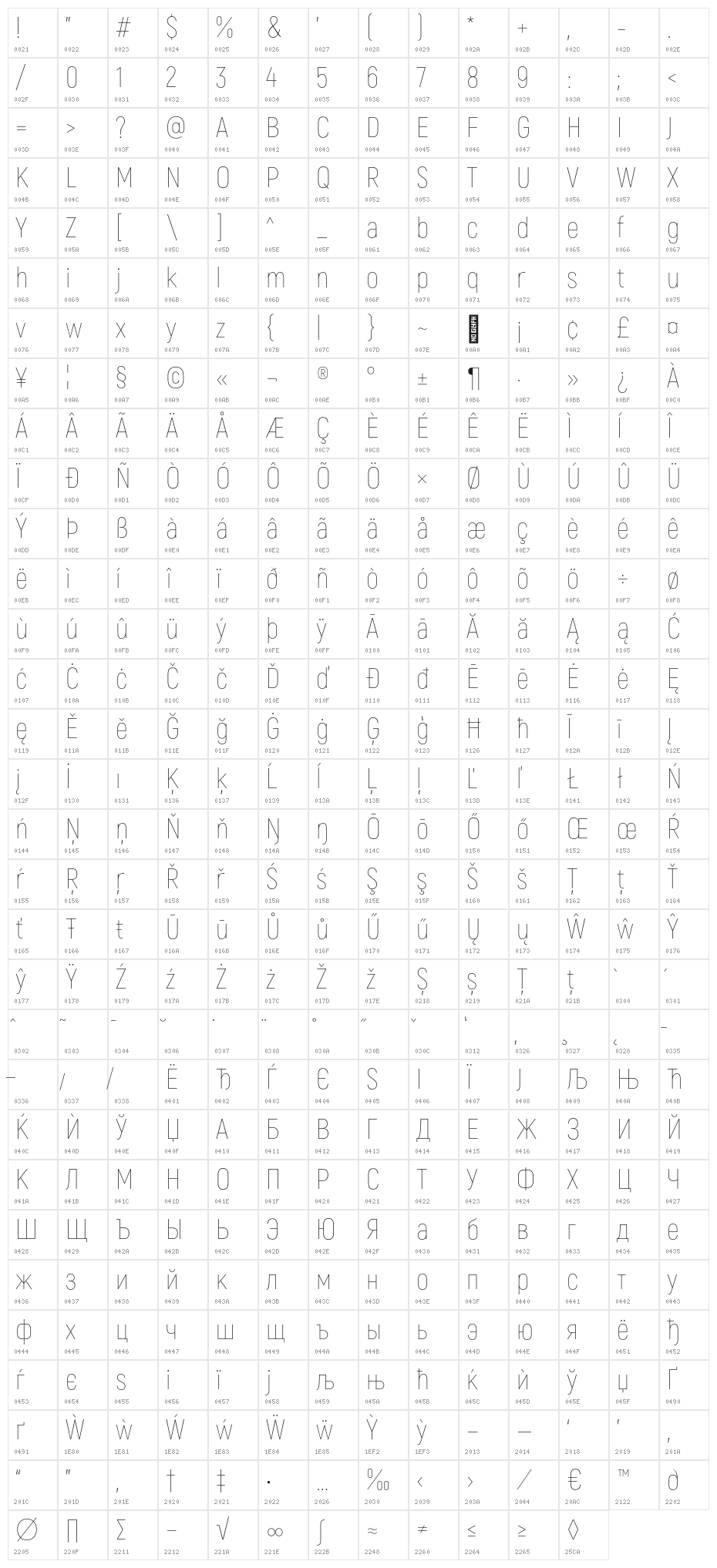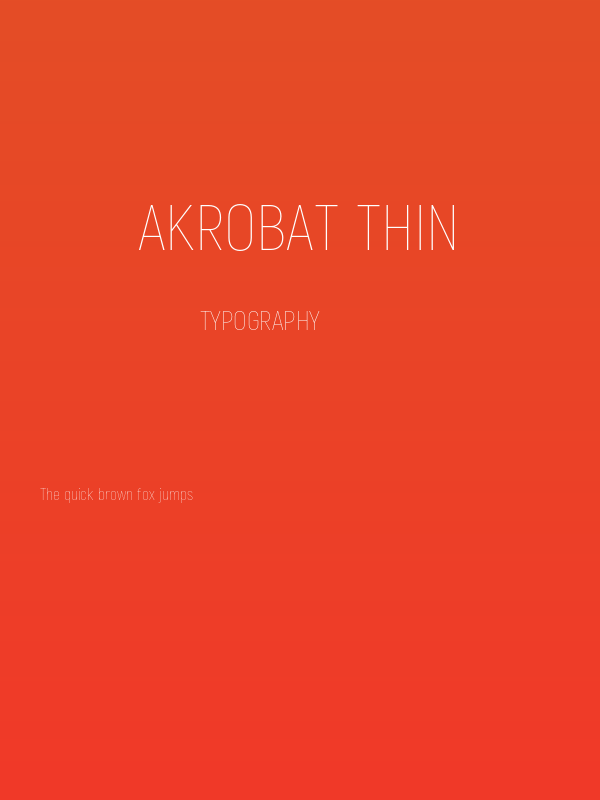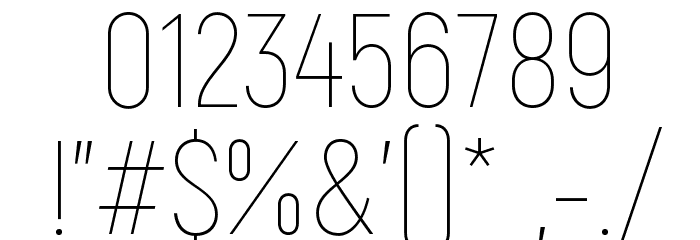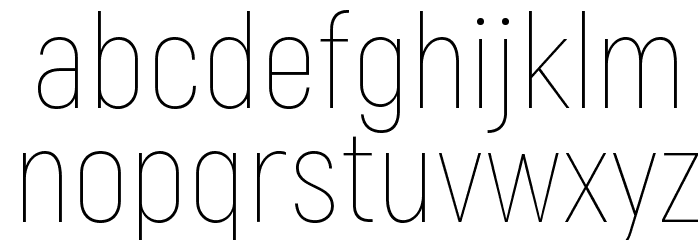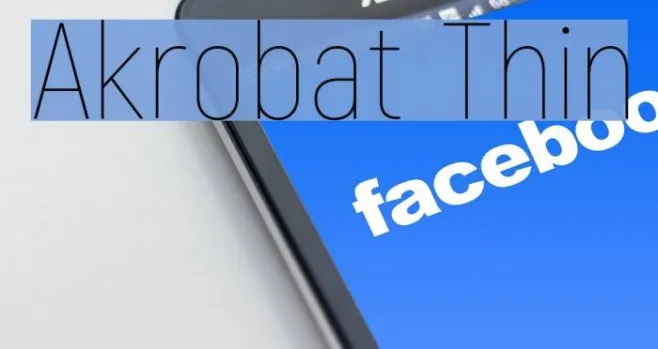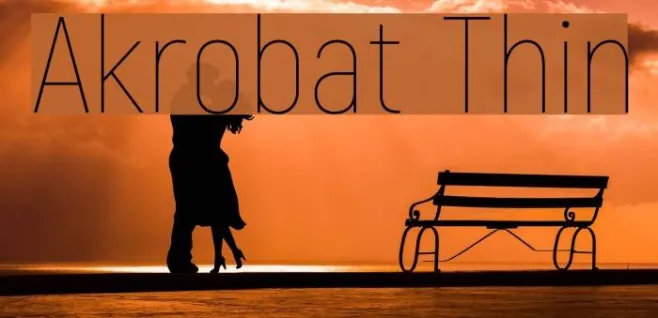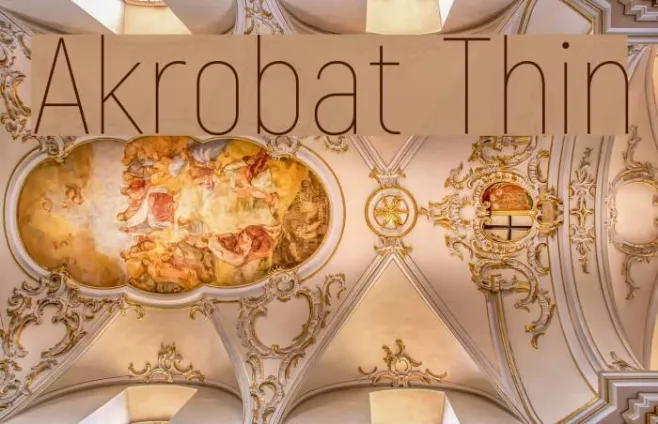
Akrobat Thin Font
Akrobat Thin Description
This font features a sleek and modern design with thin, elongated letterforms that convey a sense of elegance and sophistication. The characters are uniformly structured with a consistent stroke width, giving it a clean and minimalist appearance. The uppercase and lowercase letters maintain a harmonious balance, while the numerals and special characters integrate seamlessly into the overall design. Its geometric nature and precise lines make it suitable for contemporary projects that require a refined and understated aesthetic.
| Proposed Projects | Ideal for use in branding, editorial design, web design, and advertising where a modern and elegant look is desired. |